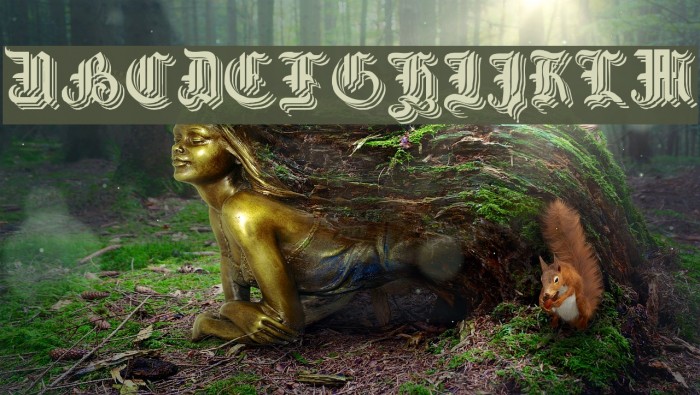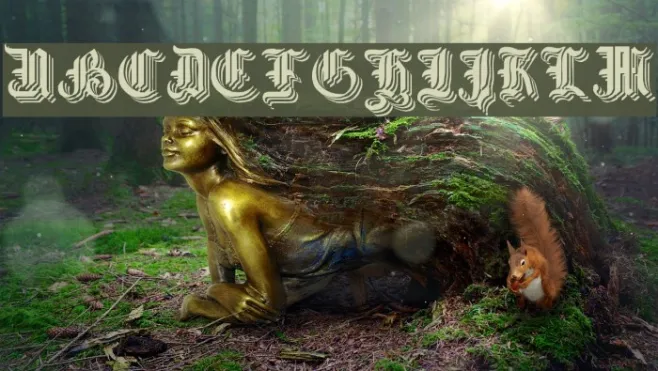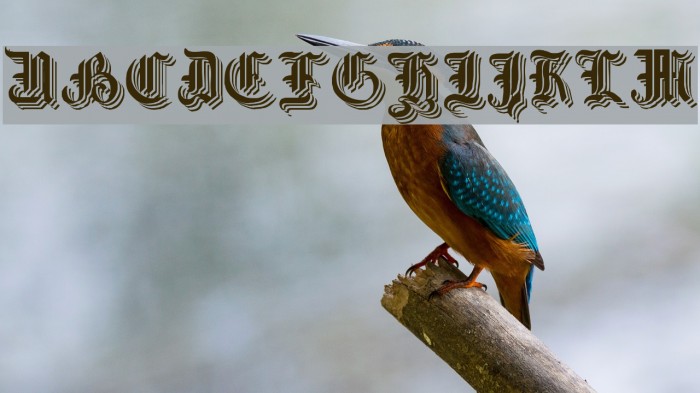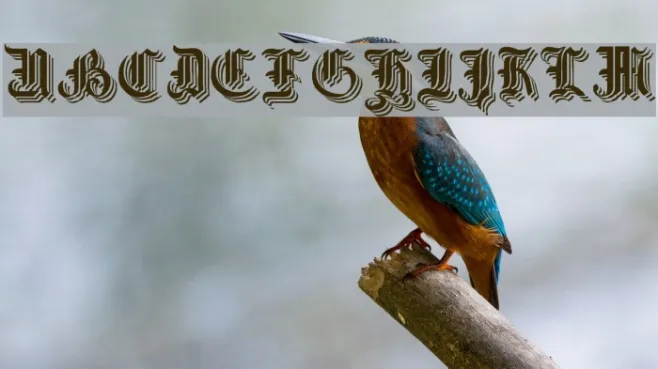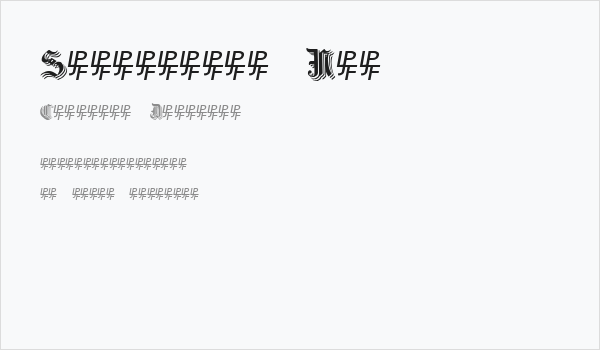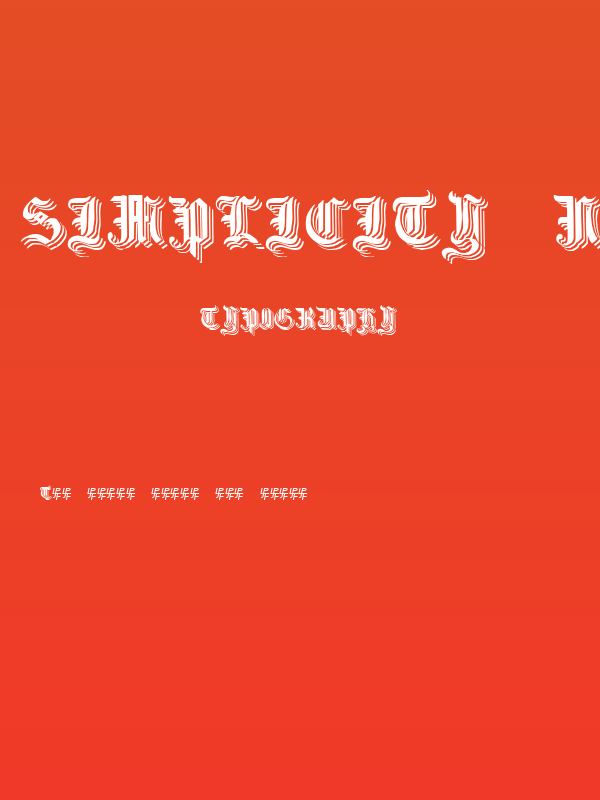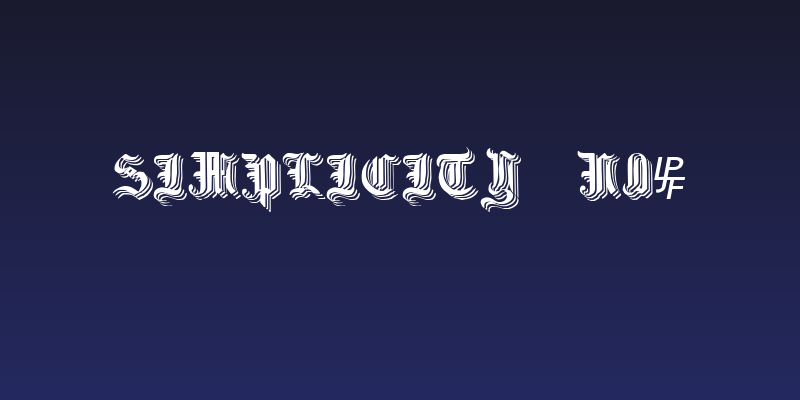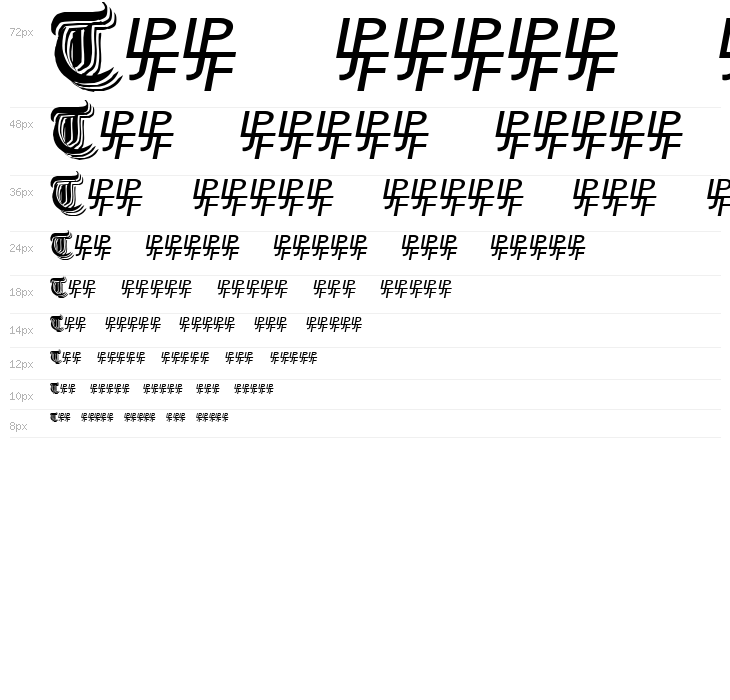
Simplicity No3 Font
Simplicity No3 Description
This font showcases a bold and intricate design, reminiscent of traditional blackletter styles. The uppercase letters feature sharp, angular lines with elaborate serifs and decorative elements, giving them a gothic and medieval appearance. The strokes are thick and consistent, providing a strong visual impact. The font's ornate style is suitable for projects that require a historical or dramatic flair, such as event posters, book covers, or branding for vintage-themed products.
| Proposed Projects | Ideal for historical-themed designs, event posters, book covers, and vintage branding. |